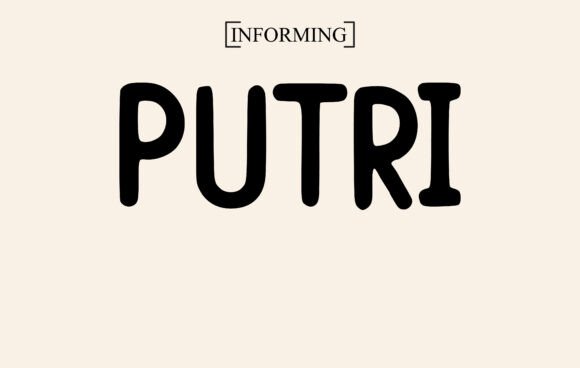
Introducing Putri Font: Elevate Your Creative Projects with Elegance and Legibility
In the world of typography, a font can make or break a design. It’s the foundation upon which your creative ideas are built, and it can either elevate or detract from your message. If you’re on the hunt for a font that combines elegance, legibility, and versatility, look no further than Putri Font. Designed to be a true favorite among designers and creatives, Putri Font has the potential to take your projects to the highest level.
What Makes Putri Font Stand Out?
- Legibility: Putri Font is designed to be easily readable, making it perfect for both title and body text. Its clear and concise letterforms ensure that your message is communicated effectively, whether it’s in a magazine headline or a social media post.
- Elegance: With its sophisticated and refined design, Putri Font adds a touch of elegance to any project. Its classic lines and proportions make it suitable for a wide range of applications, from wedding invitations to branding and advertising.
- Versatility: Putri Font is an incredibly versatile font that can be used in various contexts. Whether you’re designing a magazine headline, a t-shirt, or a social media graphic, this font is sure to impress.
Endless Design Possibilities with Putri Font
Putri Font is perfect for a wide range of design applications, including:
- Magazine Headlines: Create eye-catching headlines that grab attention and draw readers in.
- T-Shirts and Apparel: Add a touch of elegance and sophistication to your apparel designs.
- Social Media Graphics: Elevate your social media presence with stunning graphics that showcase your brand’s personality.
- Branding and Advertising: Create cohesive brand identities that exude professionalism and style.
- Wedding Invitations and Cards: Add a touch of romance and whimsy to your wedding stationery and cards.
The Benefits of Using Putri Font
So, what are the benefits of using Putri Font in your design projects? Here are just a few:
- Unique and Memorable: Putri Font helps you create designs that stand out and are memorable.
- Elegant and Sophisticated: Add a touch of elegance and sophistication to your designs.
- Flexible and Versatile: Use Putri Font in a wide range of design applications.
In conclusion, Putri Font is an exceptional font that has the potential to elevate your creative projects to new heights. Its unique combination of legibility, elegance, and versatility makes it perfect for a wide range of design applications. Whether you’re a seasoned designer or just starting out, Putri Font is sure to become a favorite in your toolkit.